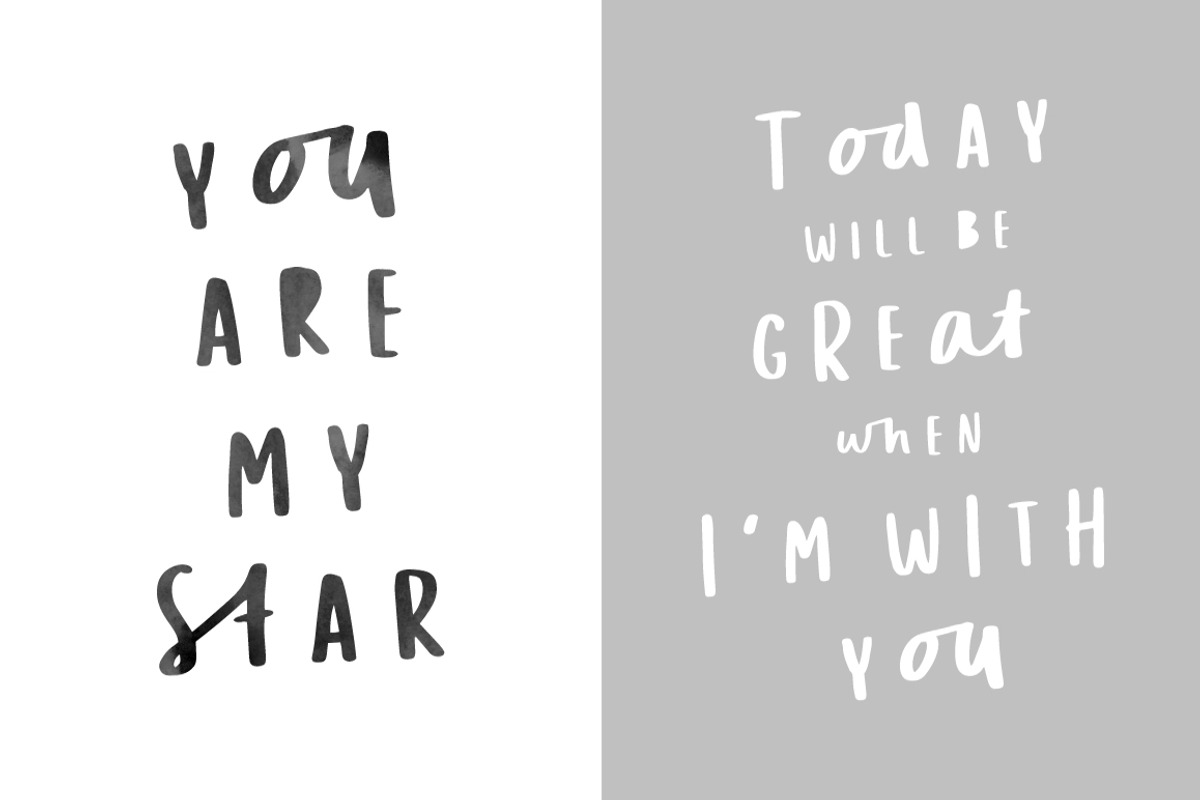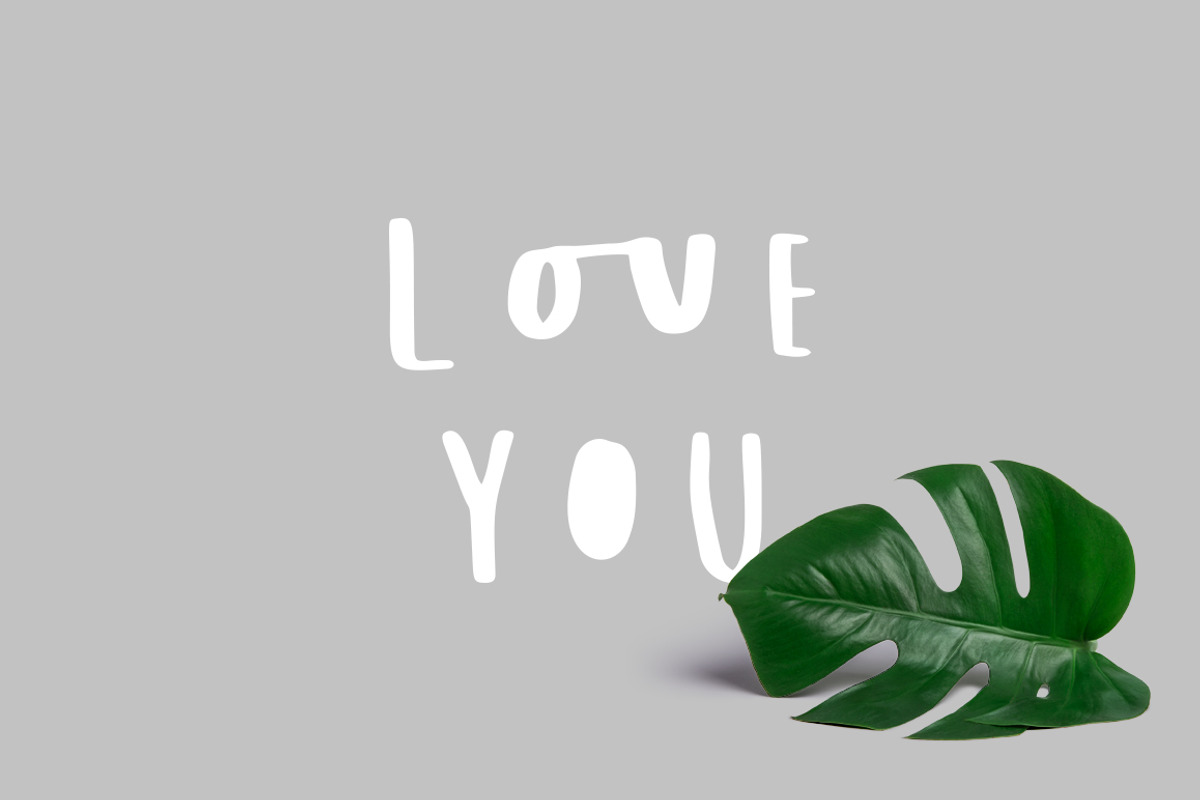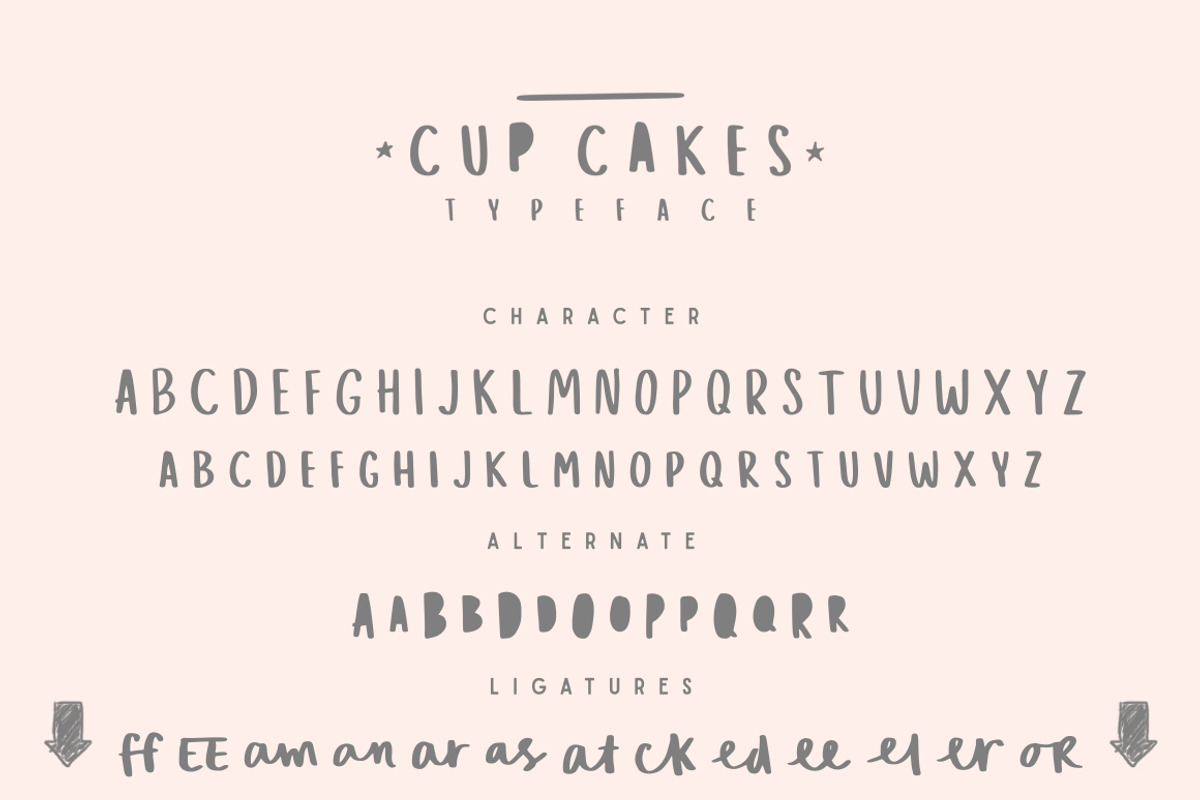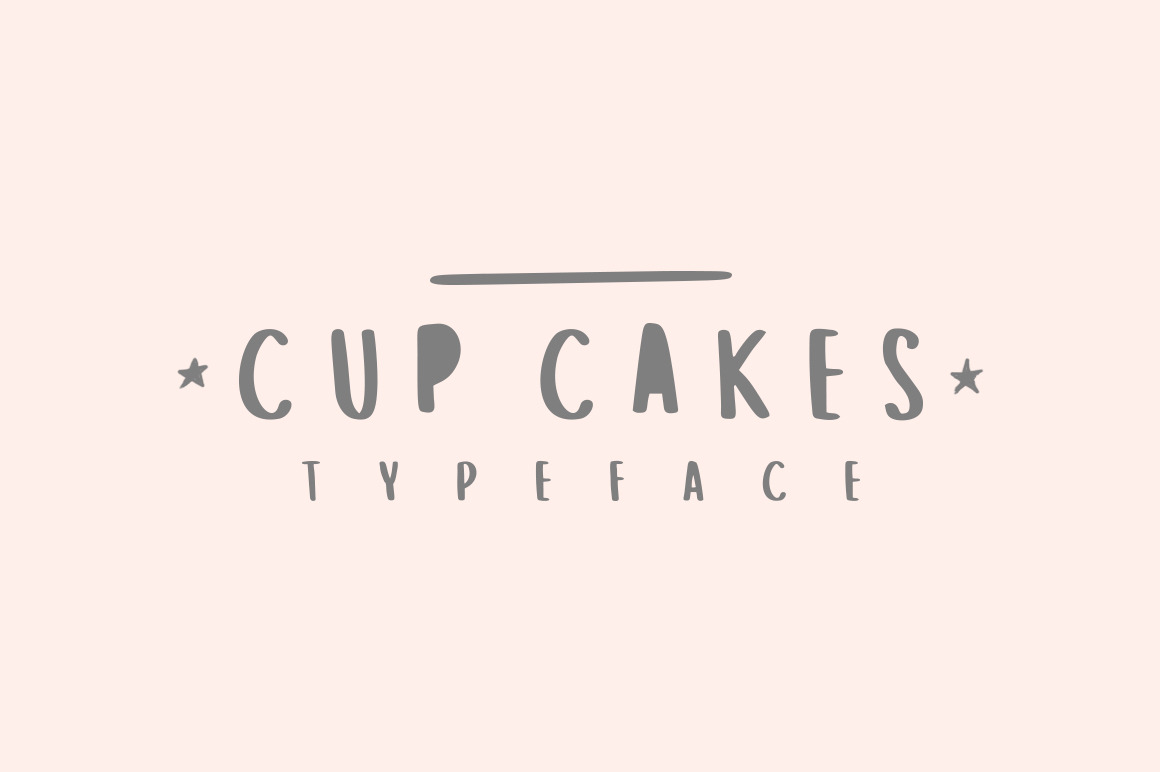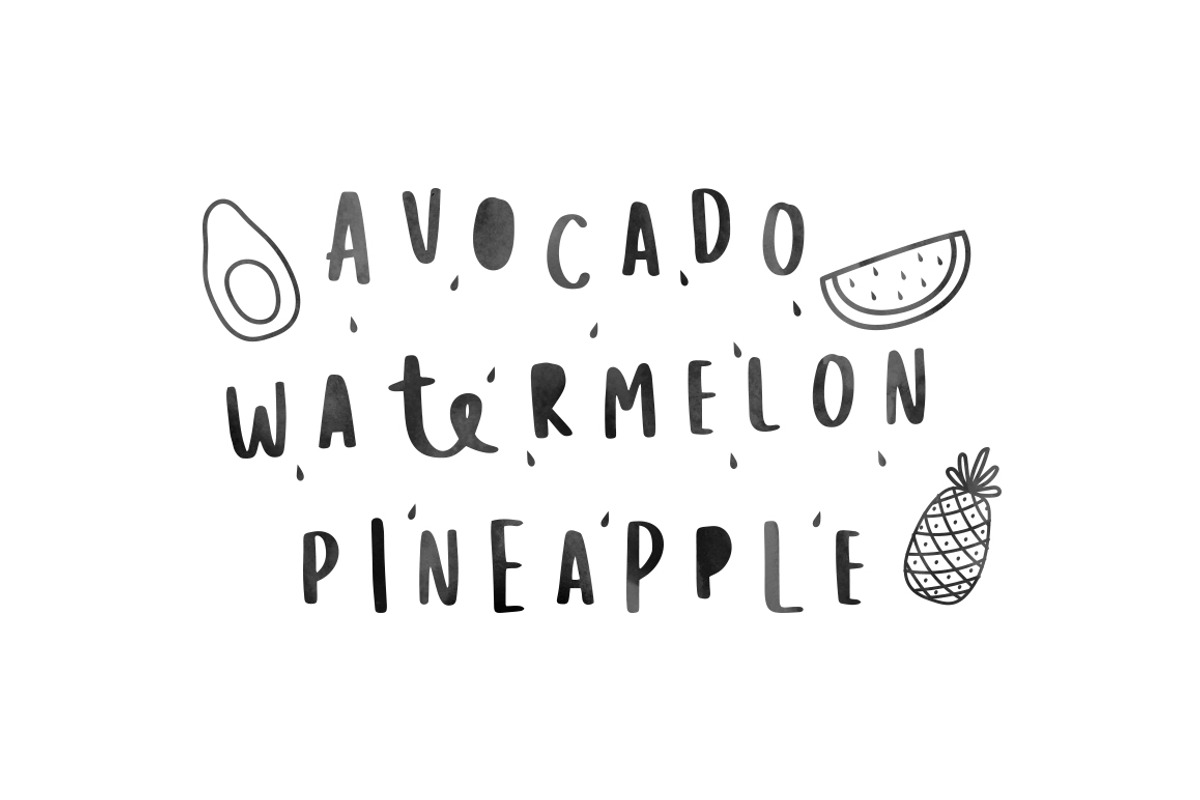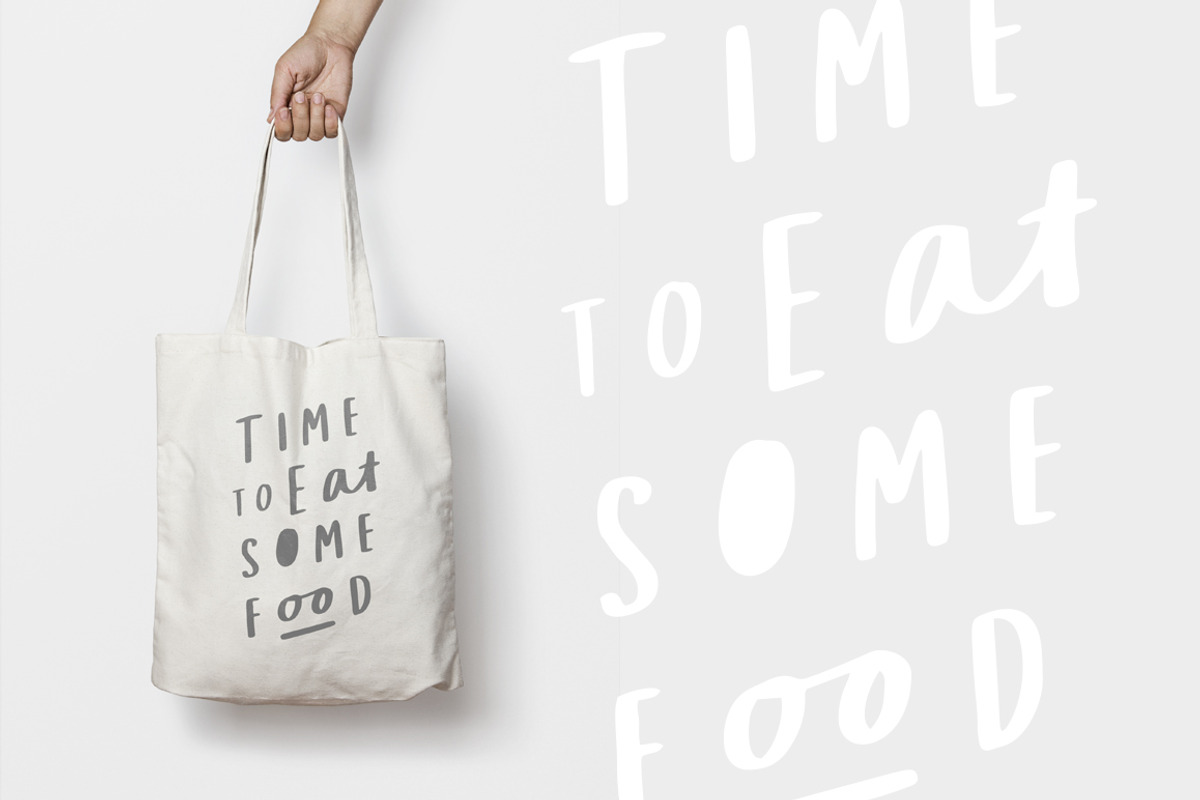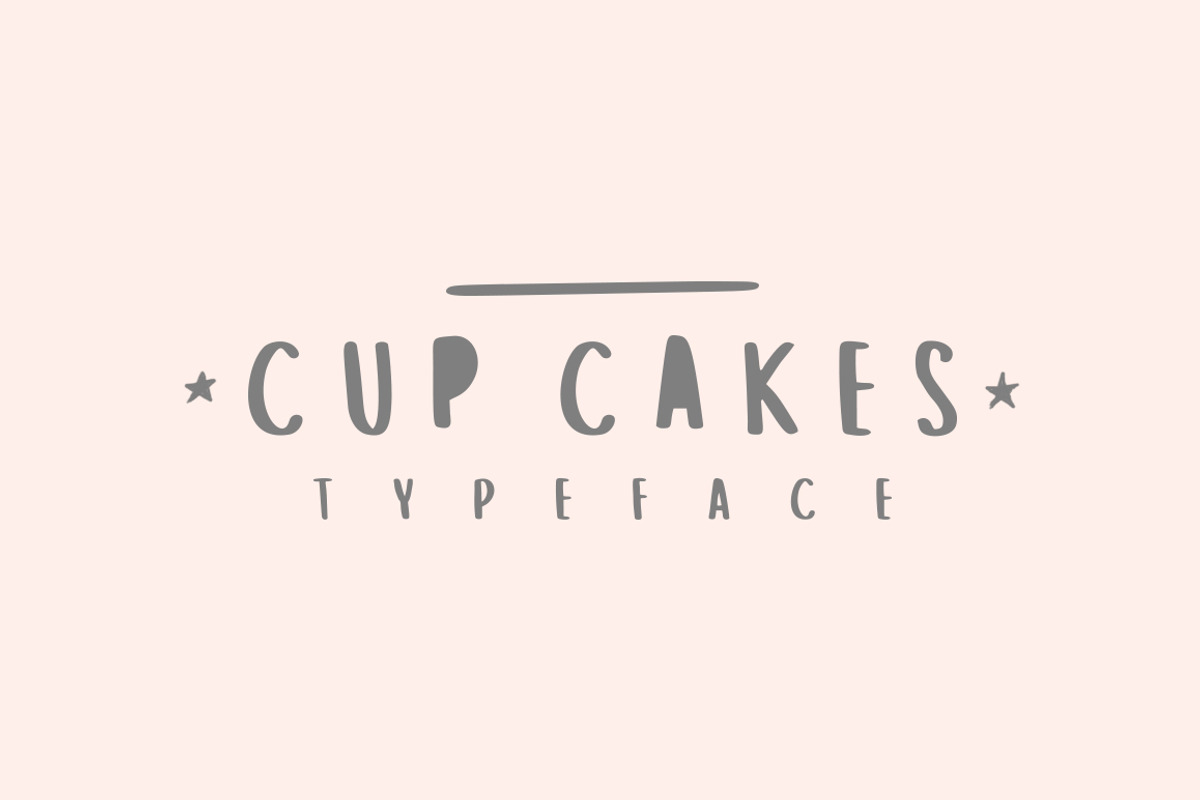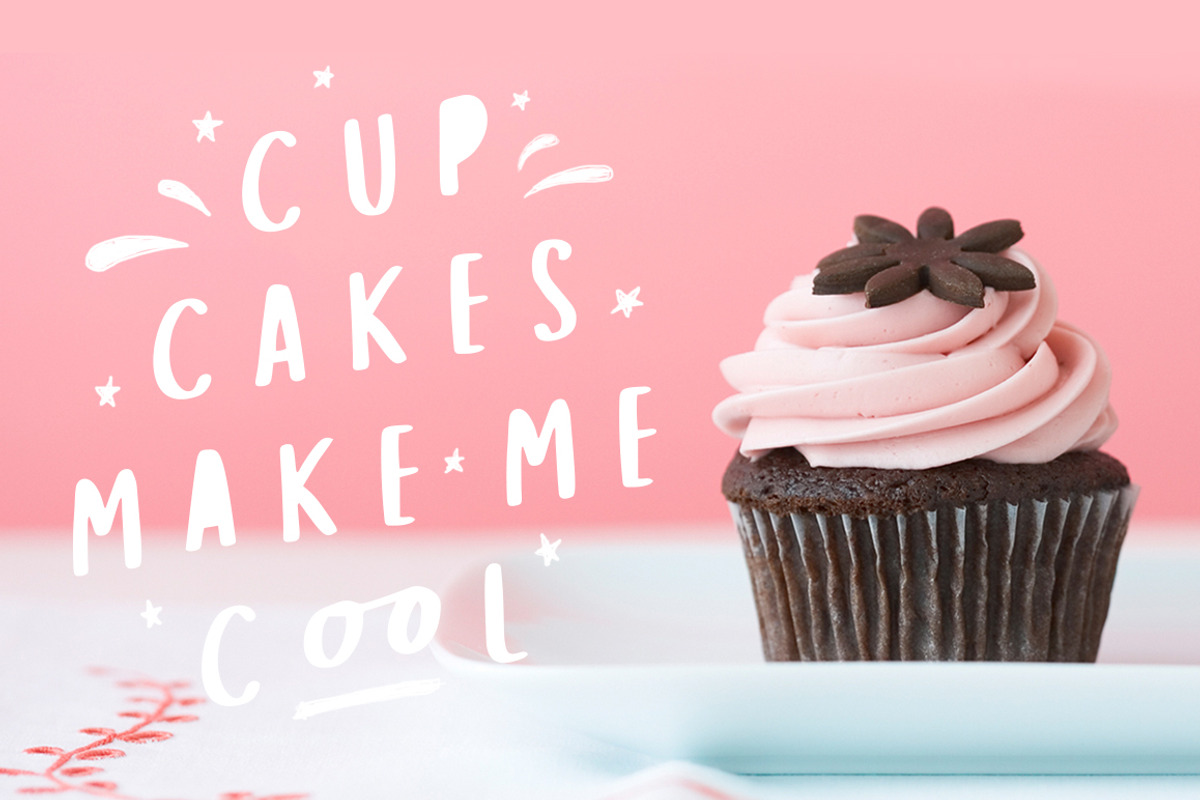
Cup Cakes is a handwritten sans serif font. This font very simple and fun to use! Cup Cakes perfect for create a quotes, logo, badge, insignia, packaging, headline, poster, t-shirt/apparel, greeting card, wedding invitation and more.